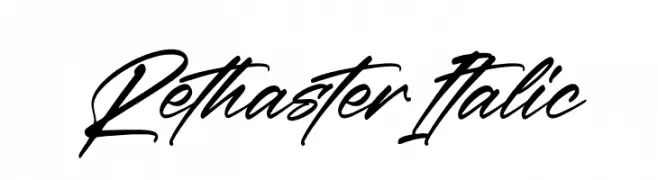
An elegant script font with ornate swirls and decorative flourishes.
A charming, elegant handwritten script with flowing, connected letters.
A charming and elegant handwritten font with fluid curves.
An elegant, high-contrast script font with decorative swashes and flourishes.
An elegant and sophisticated cursive font with ornate swashes and flourishes.
A cursive, handwritten font with elegant curves and a sophisticated style.
A dynamic, expressive handwritten font with fluid, flowing letterforms.
A dynamic, cursive script font with bold, fluid strokes and elegant slant.
A fluid and elegant script font with natural handwriting style.